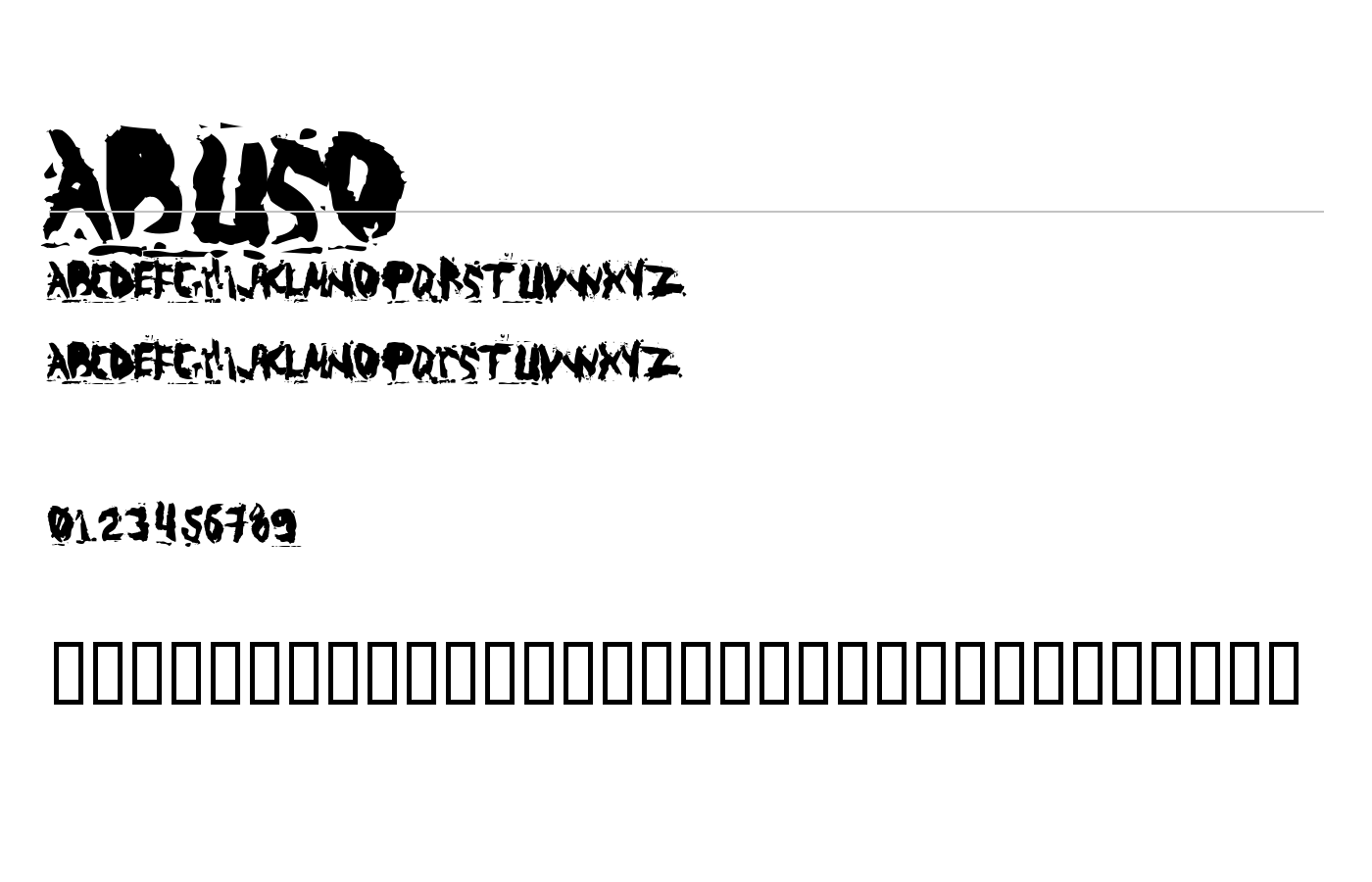
ABUSO is a bold, distressed display font characterized by its heavy weight and rough, textured edges, giving it an intense and grungy appearance. With an all-uppercase design and irregular letterforms, it evokes a rebellious, edgy feel perfect for striking headlines, posters, or branding that demands attention and communicates raw energy. This font works best in creative projects that want to convey a sense of urgency, underground culture, or bold expression.
ABUSO Font